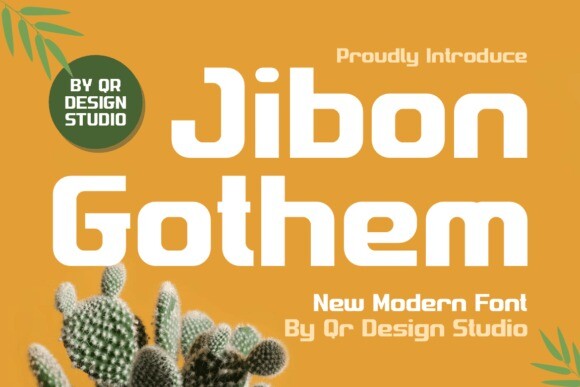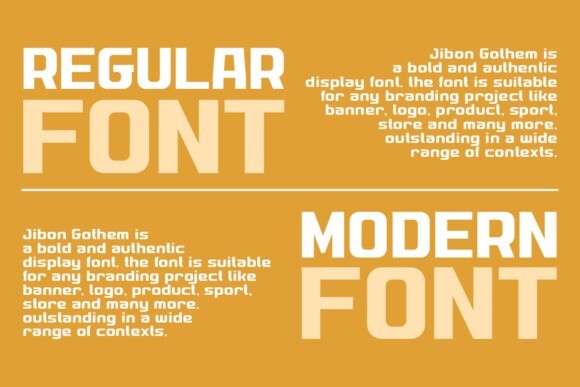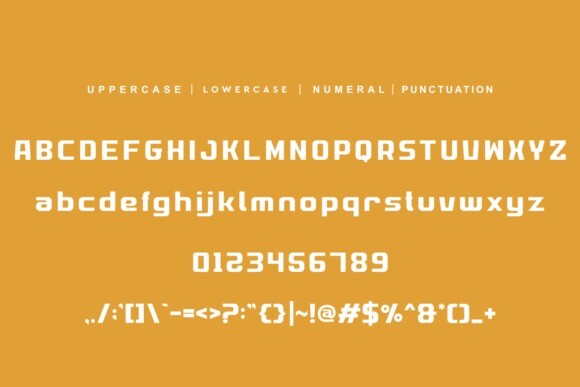
Jibon Gothem Font
Jibon Gothem Font feels playfully nostalgic and delivers an incredible vintage aesthetic. Use this serif font to add that special retro touch to any design idea you can think of!